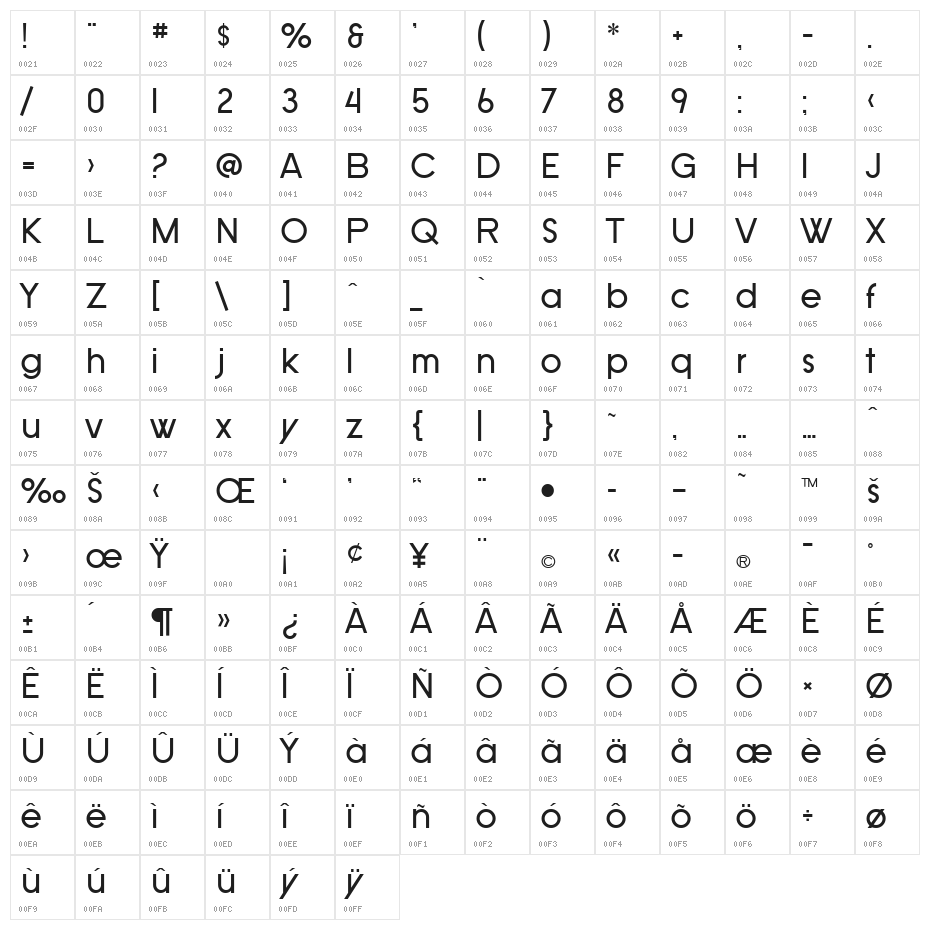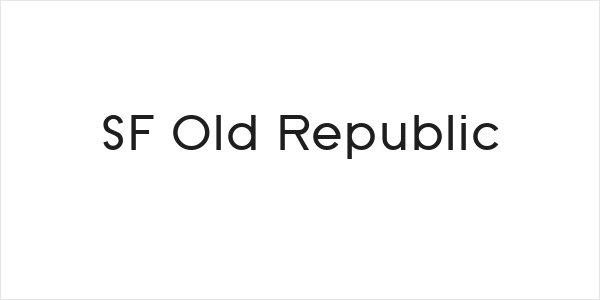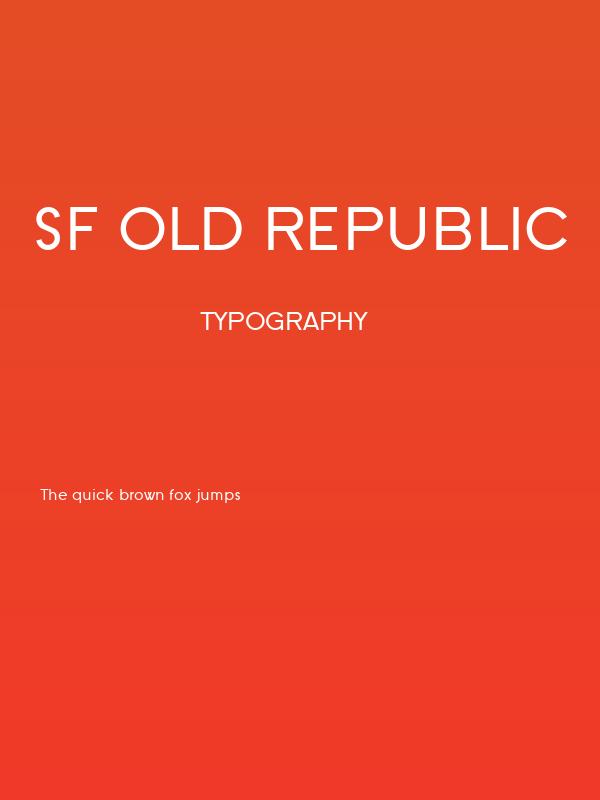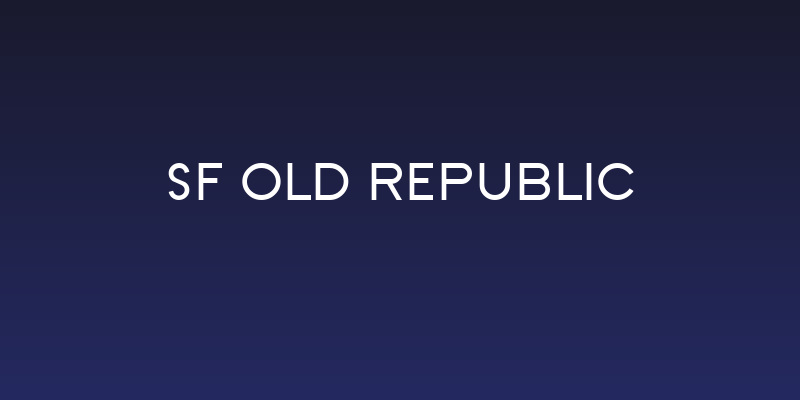
SF Old Republic Font
SF Old Republic Description
This font features a clean and modern sans-serif style with uniform stroke widths, giving it a sleek and contemporary appearance. The characters are well-proportioned with a geometric influence, evident in the circular shapes of the 'O' and '0', as well as the straight lines of the 'L' and 'T'. The uppercase and lowercase letters maintain consistent height and spacing, ensuring readability and balance. The numerals are clear and distinct, making them suitable for various applications. Special characters are included, providing versatility for different design needs.
| Proposed Projects | Ideal for branding, web design, advertising, and editorial projects where a modern and clean aesthetic is desired. |